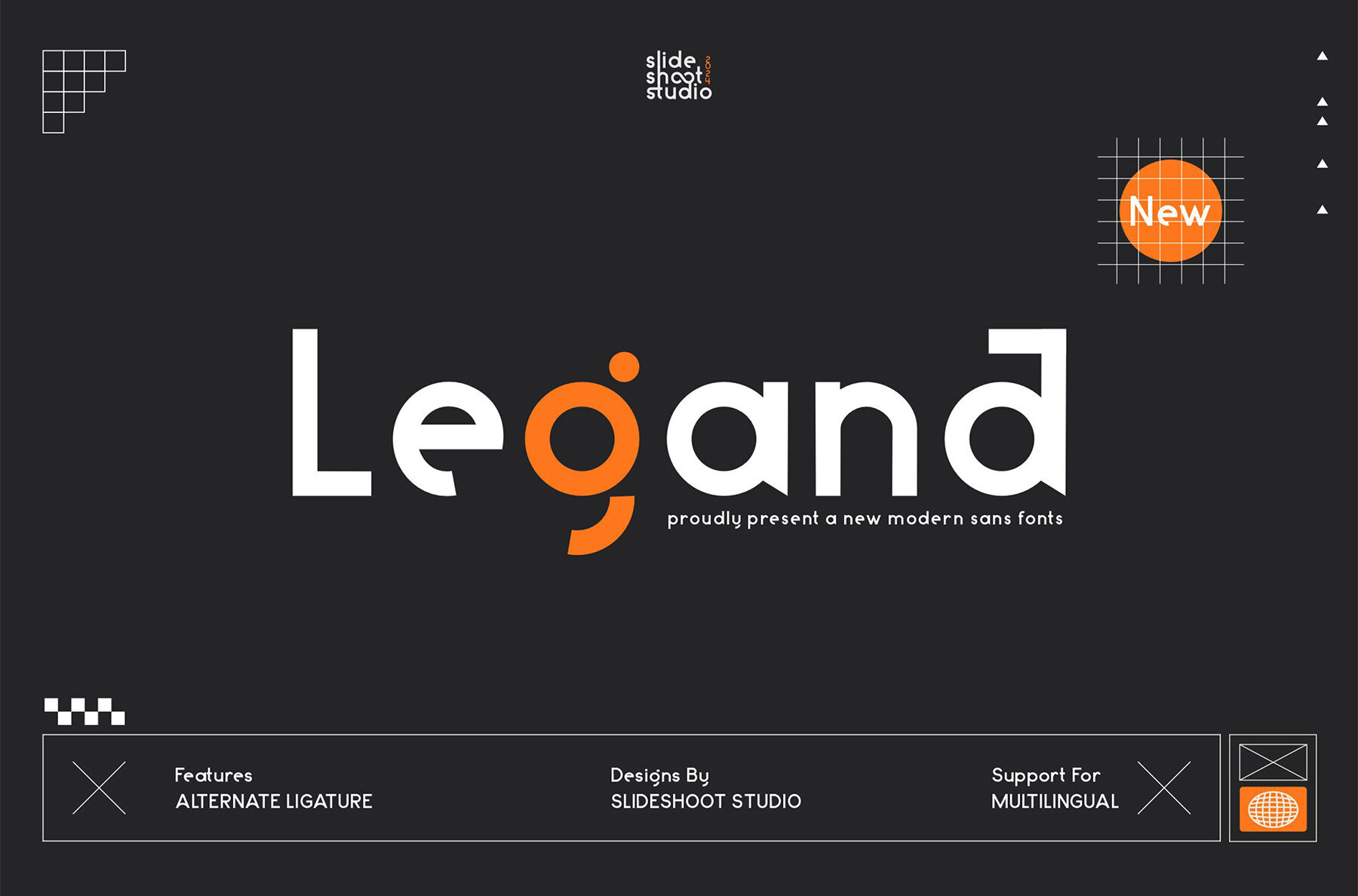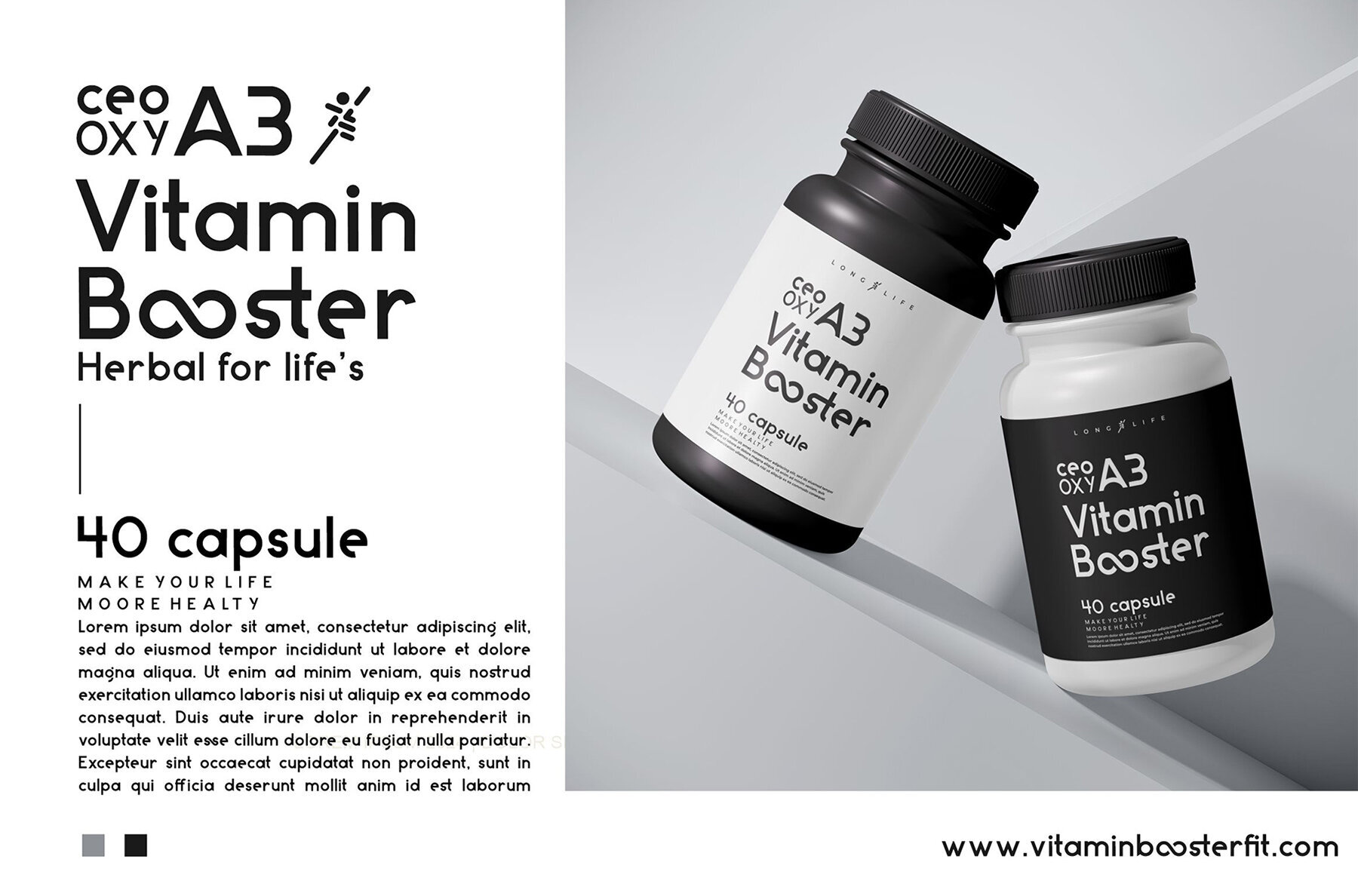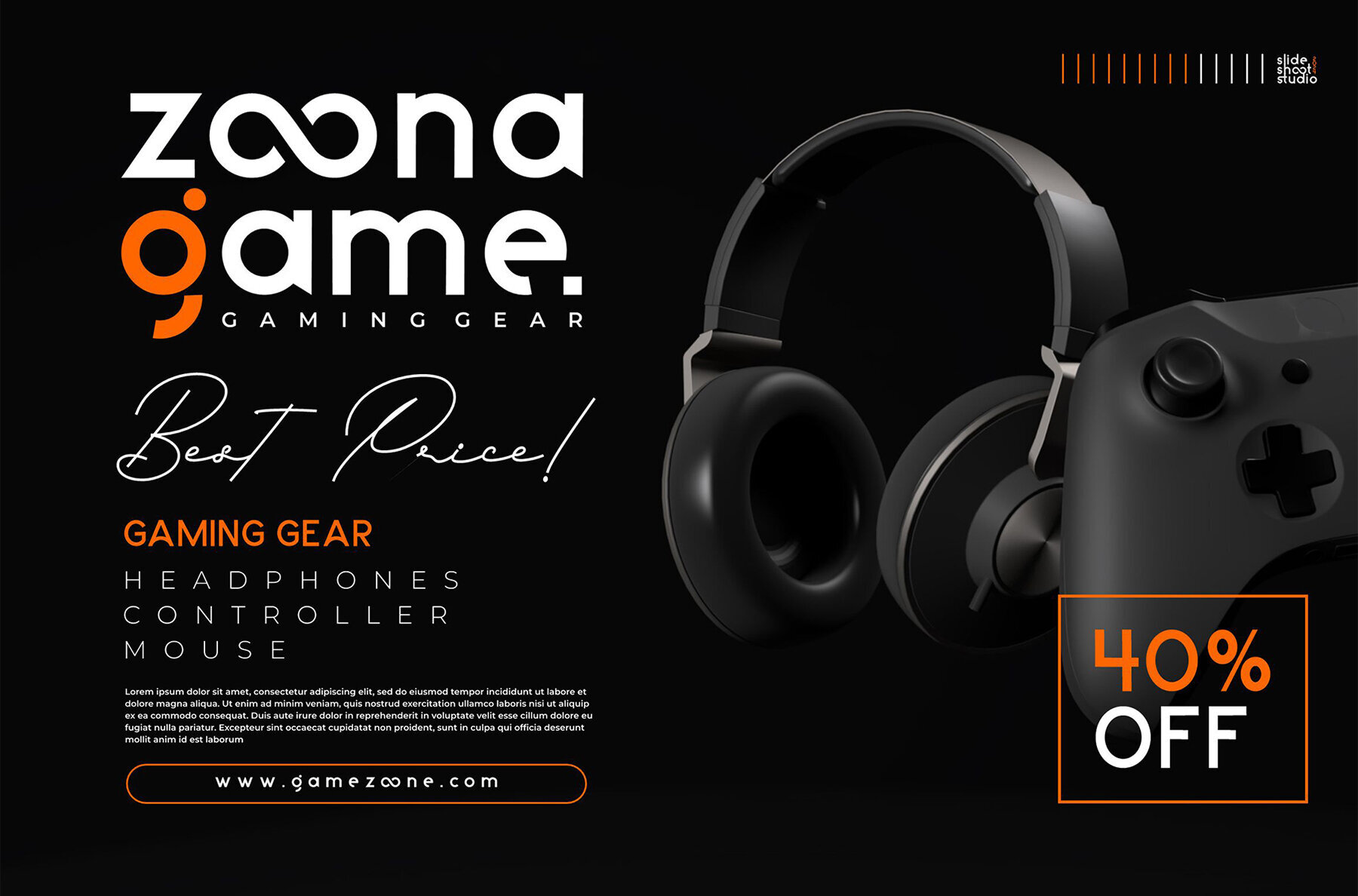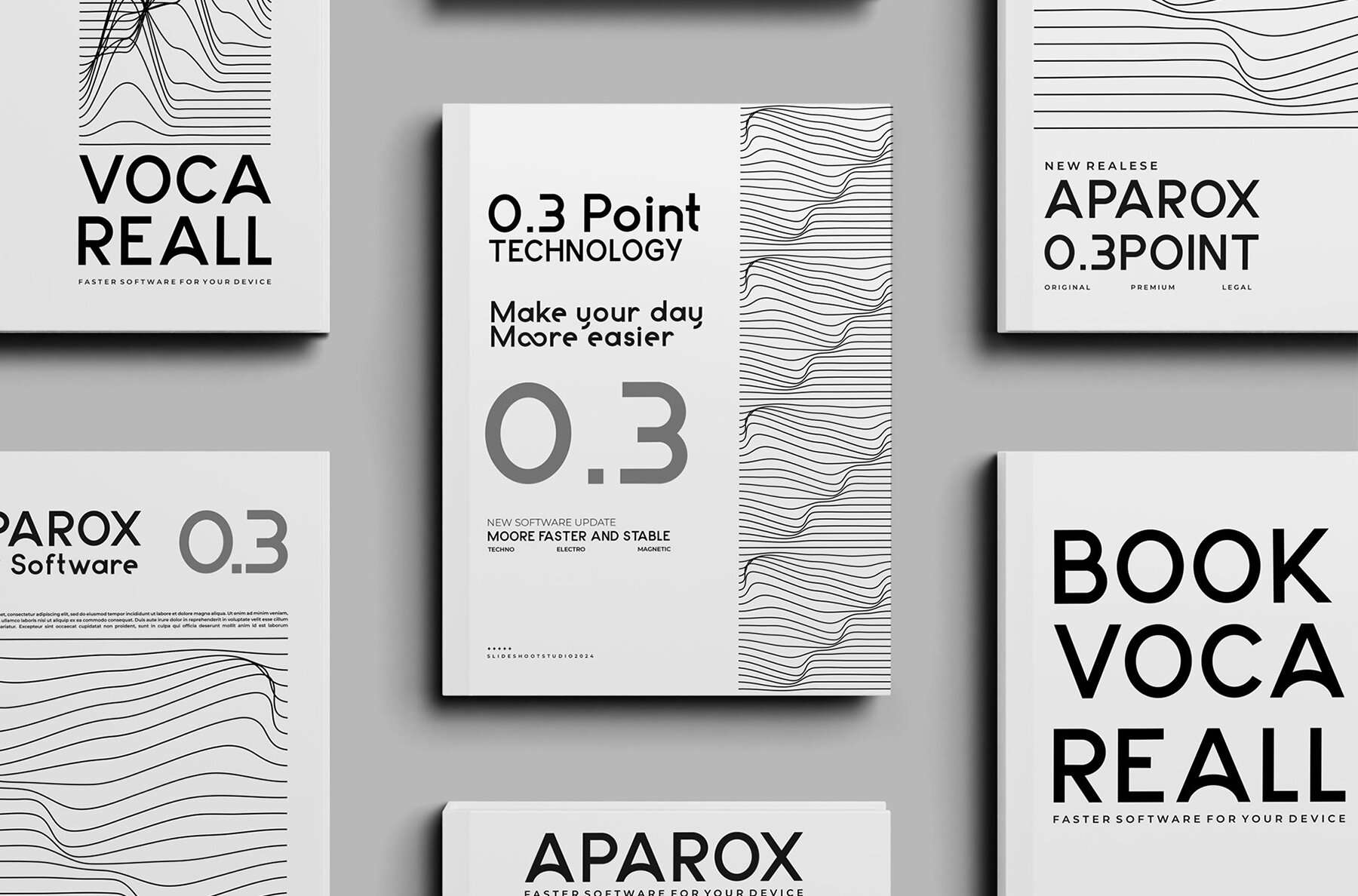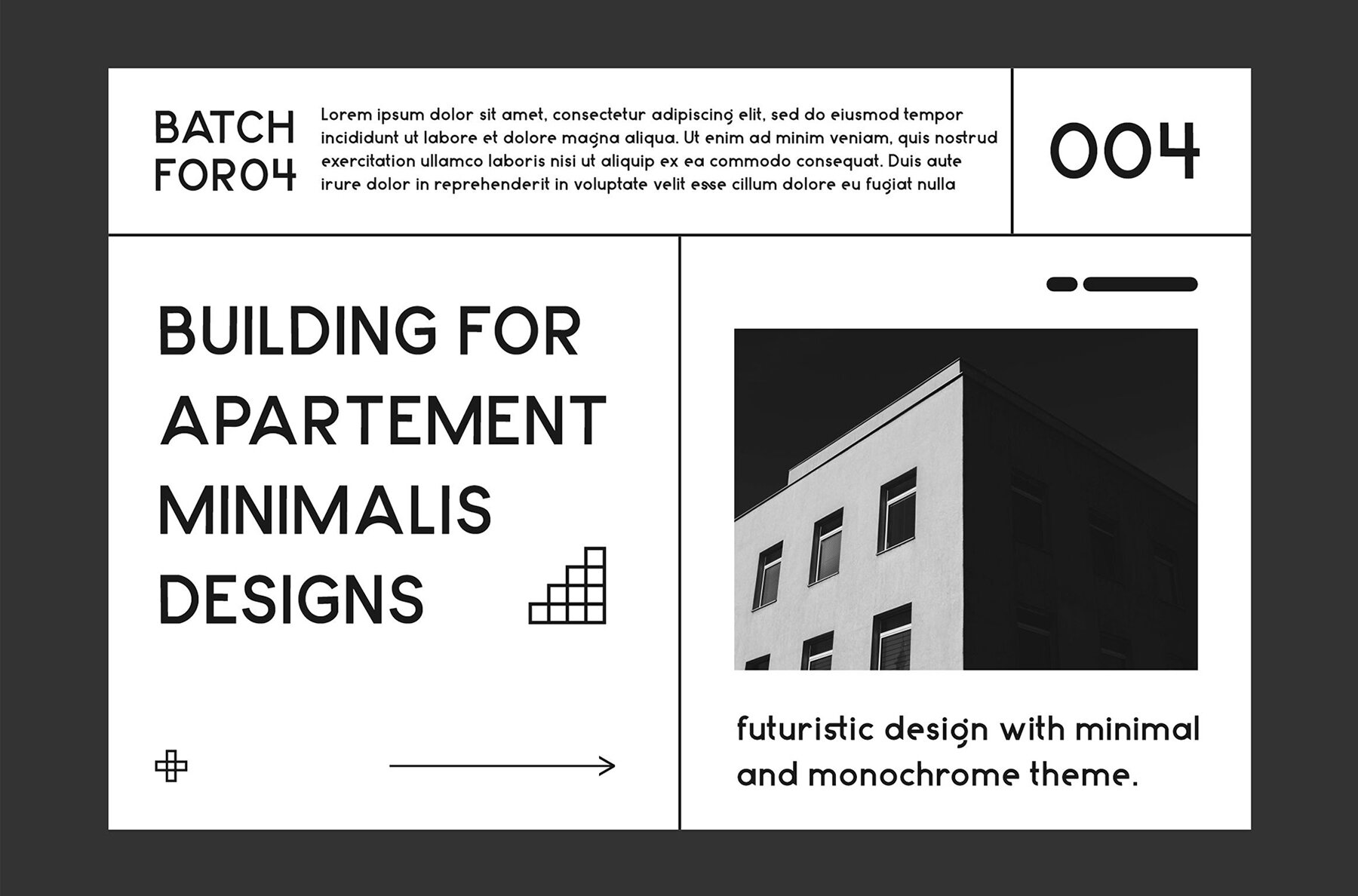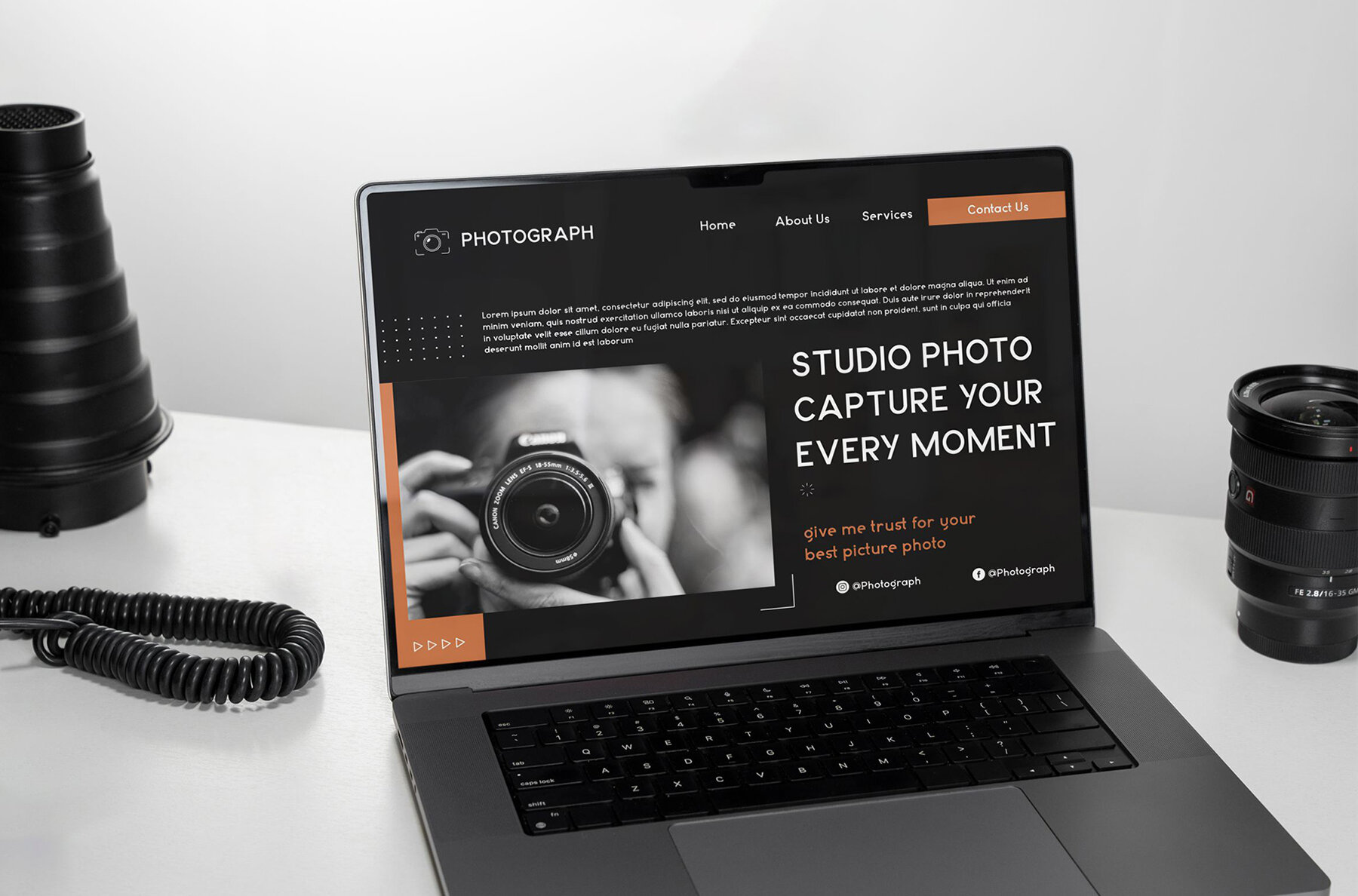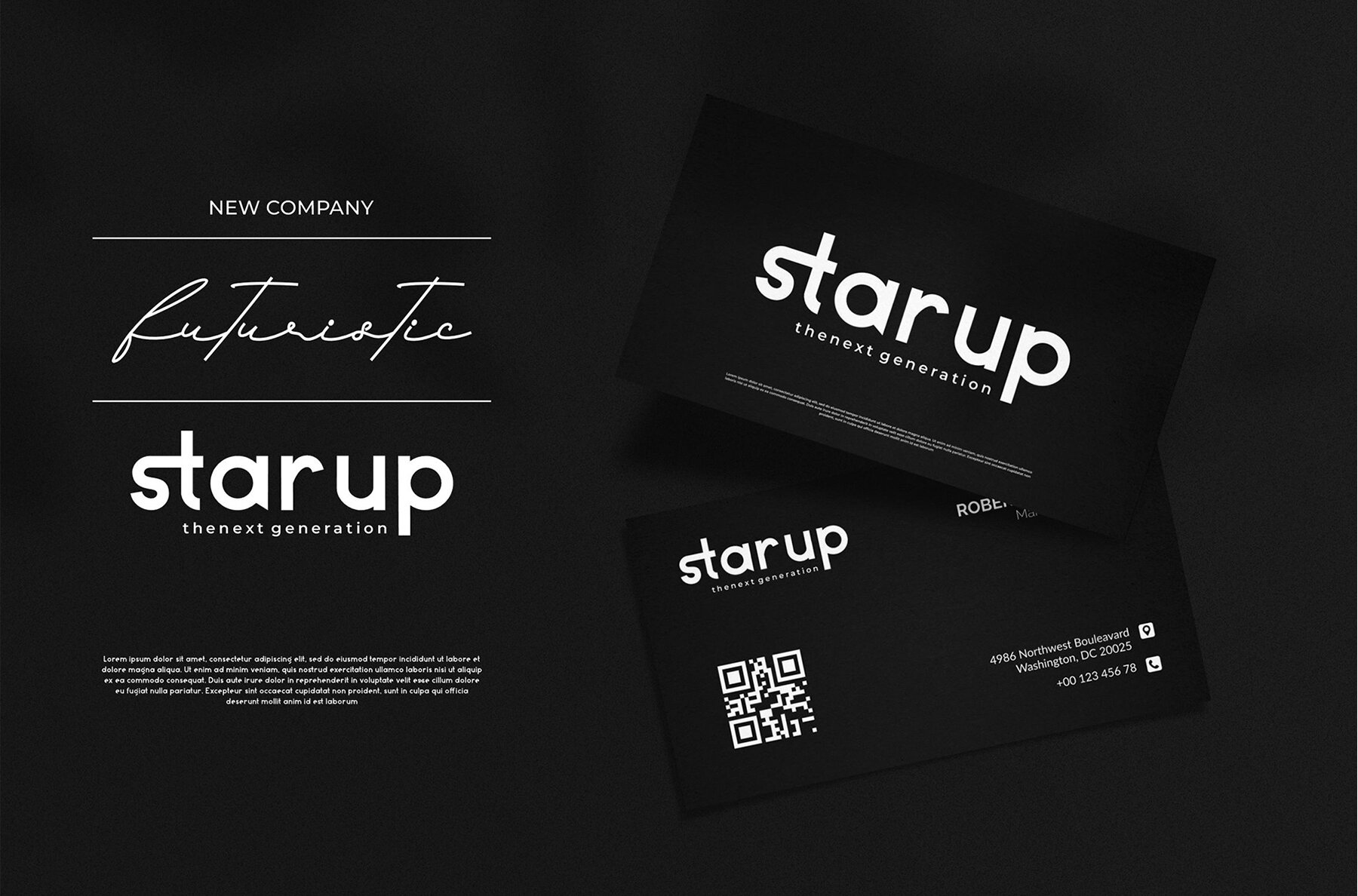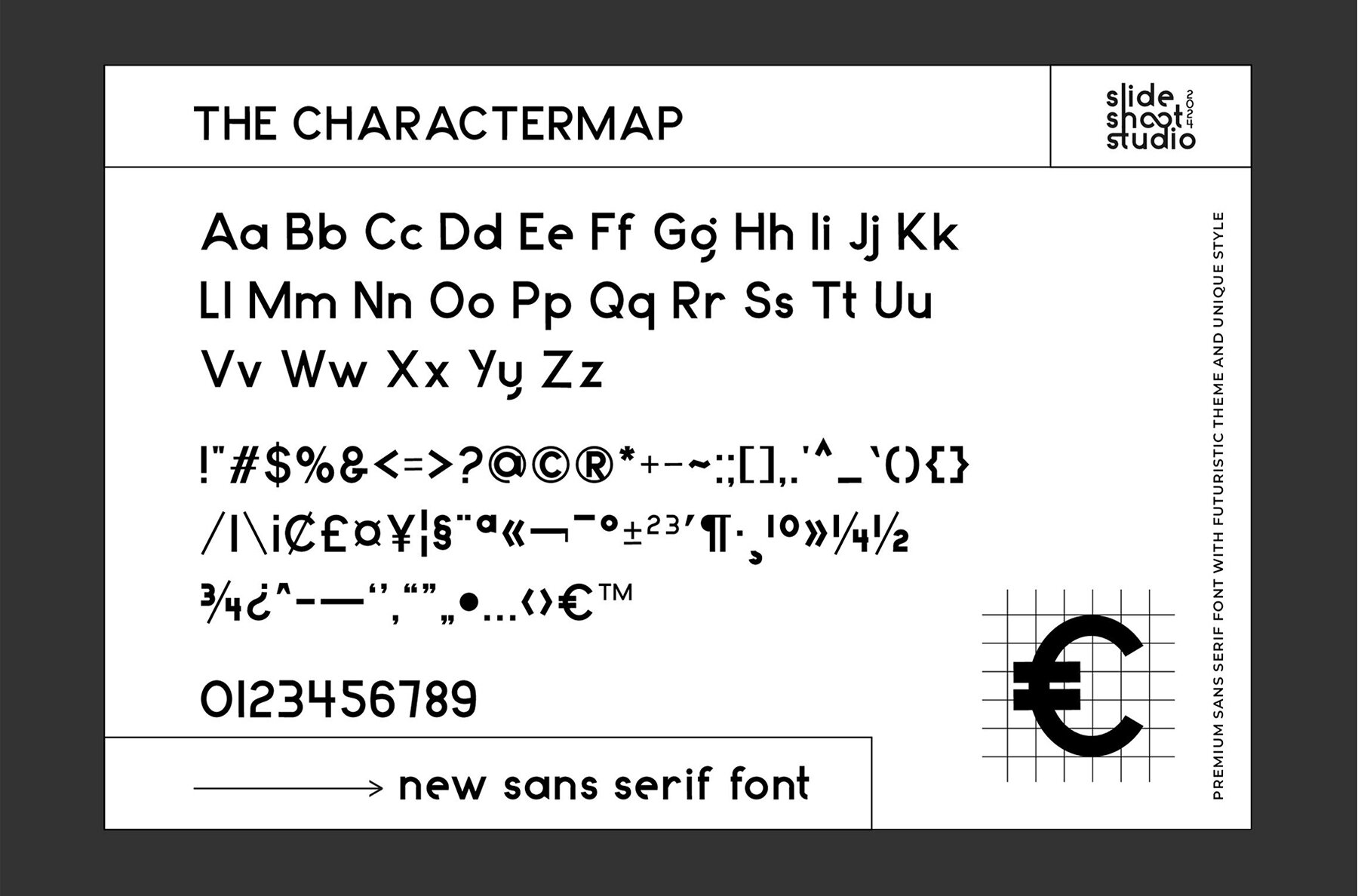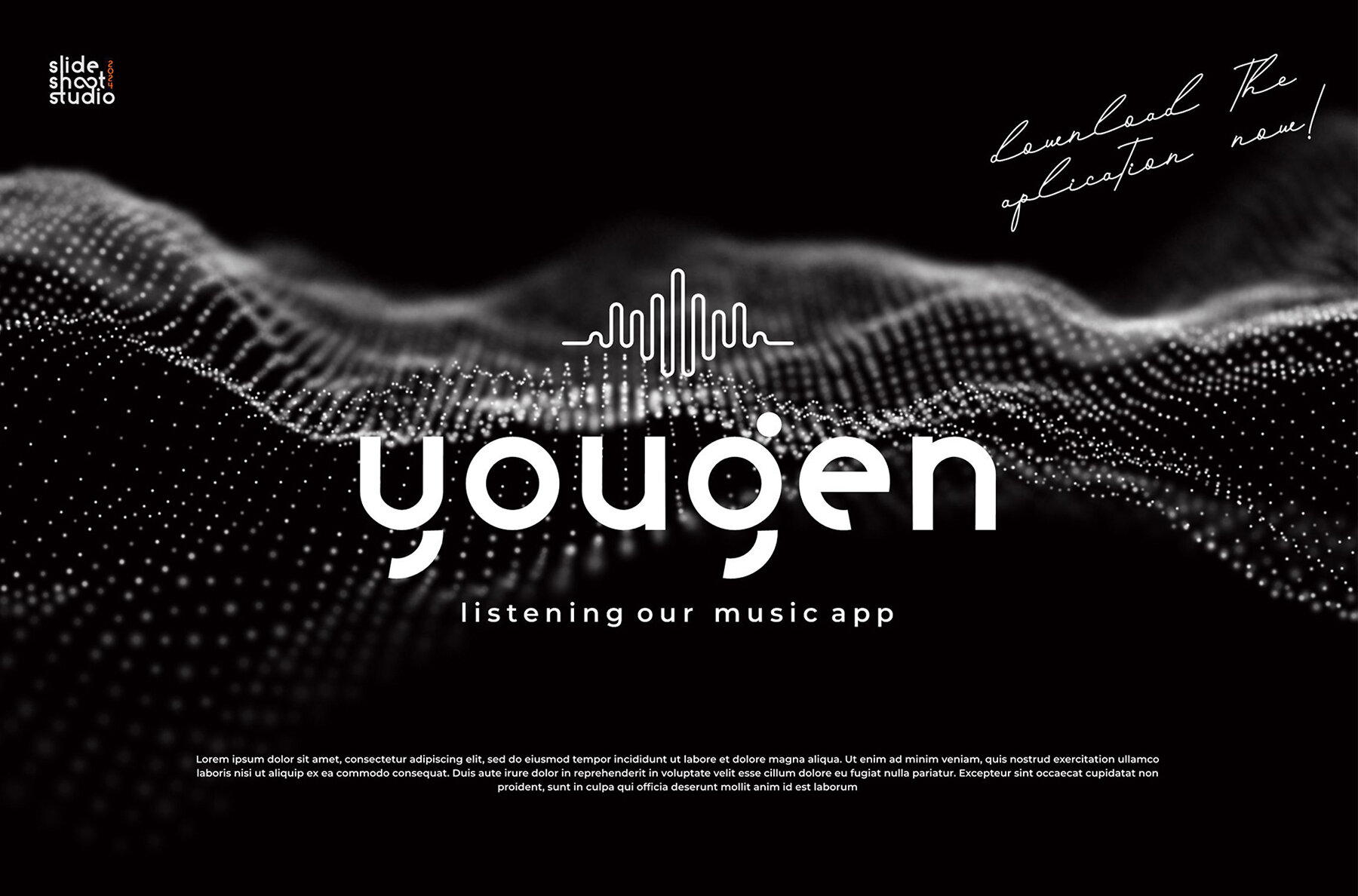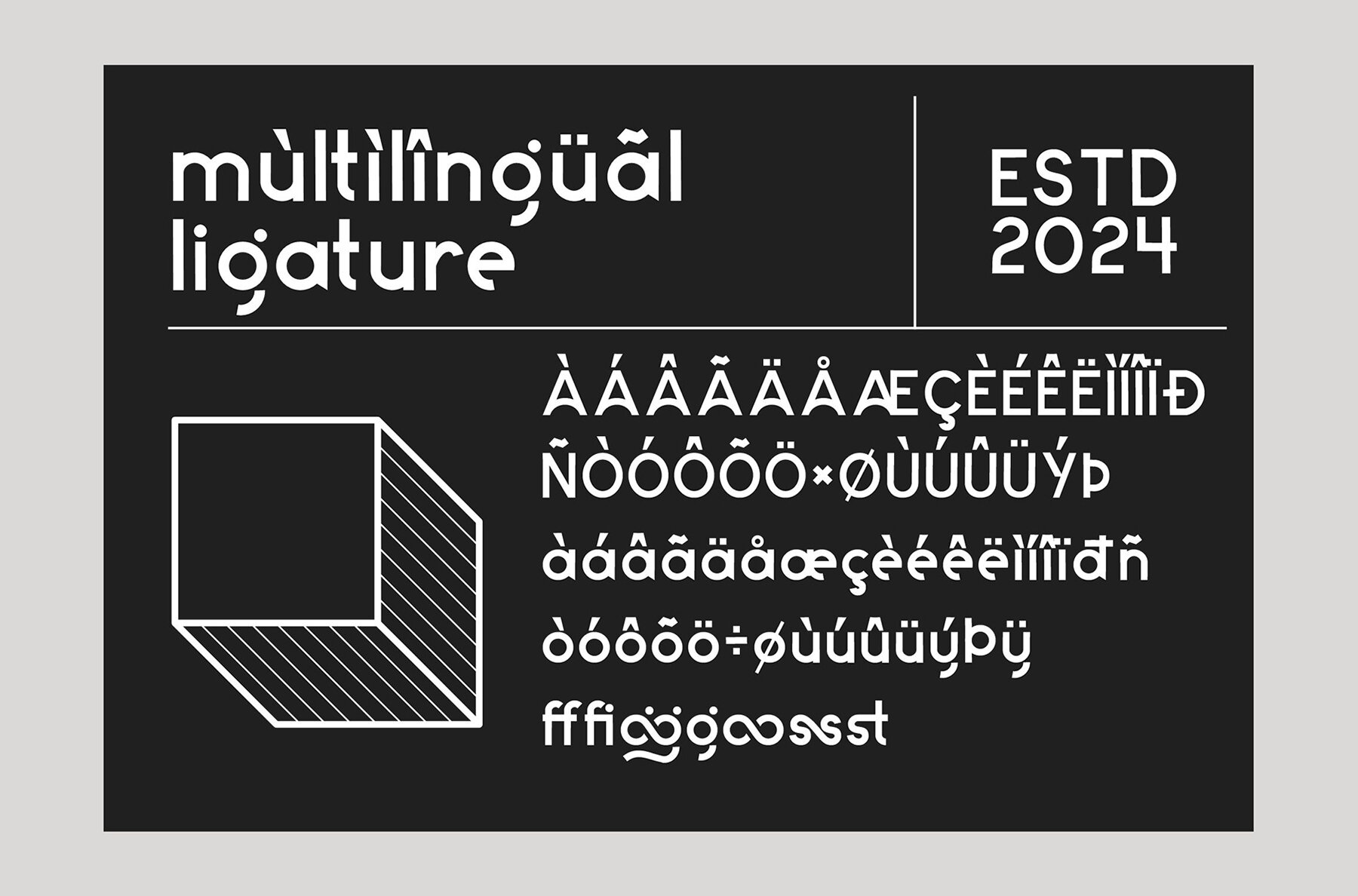
Legand Font
Legand Regular
This bold geometric sans-serif font boasts rounded, wide letterforms with a playful and clean appearance. Perfect for eye-catching headlines, branding projects, and any design seeking a youthful and fun touch. Its simplicity and clarity make it ideal for contemporary posters and advertisements.